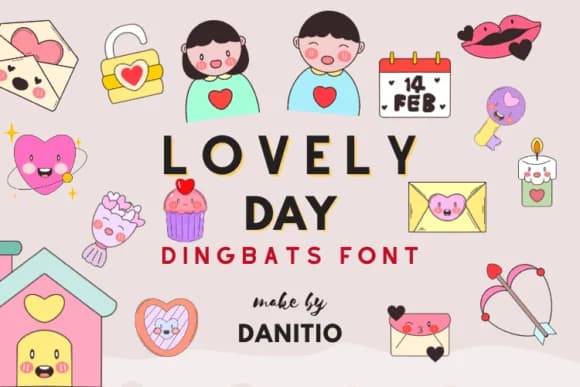
This dingbat collection feels romantic and light from the moment you open it. Lovely Day is danita.kukkai's carefully assembled set of romantic symbols and floral details designed to bring softness to paper and screen alike. The font delivers multiple form variations within a single package, letting you swap between different weights and presentation styles as your design needs shift and evolve.
Where this collection truly shines is in projects that crave genuine personality and care. Valentine's Day cards and gift tags become significantly more expressive with the integrated heart motifs and botanical flourishes woven throughout. Wedding invitation suites feel more cohesive when the decorative elements share the same hand and sensibility across every piece you create. Scrapbook pages and memory journals benefit too, as these dingbats add visual rhythm without competing with your photos and handwritten prose. Even straightforward DIY stationery like personal love letters or anniversary cards gains real warmth when you have these purpose-built romantic elements at hand.
Lovely Day Font is a versatile dingbats font that works for both headings and body text. Pair it with a contrasting sans-serif or serif font to add visual interest and a clear distinction between titles and body copy.